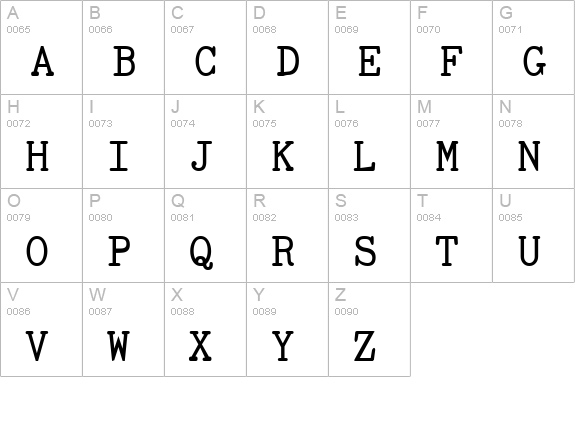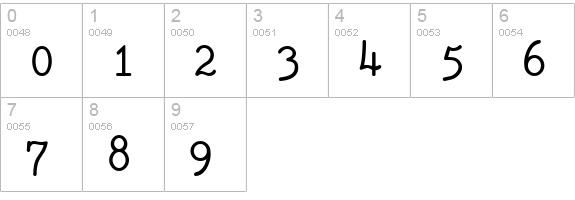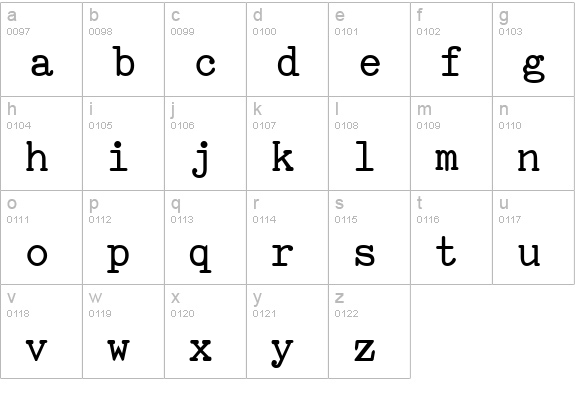
TiredOfCourier Bold Font Details
TiredOfCourier Bold is a strong, high-contrast variant in the TiredOfCourier typeface family \xE2\x80\x94 well suited to headlines, attention-grabbing titles, and strong calls-to-action.
Introducing TiredOfCourier Bold, the epitome of boldness and distinction in the world of typography. This remarkable font is designed to make a powerful statement, capturing attention and leaving a lasting impression on any design project it graces. TiredOfCourier Bold exudes an air of confidence and strength, with its thick, assertive lines that demand attention. Its bold and robust nature brings a sense of authority to any text, making it ideal for headlines, titles, and statements that need to stand out. But what sets TiredOfCourier Bold apart from other fonts is its unique ability to effortlessly blend sophistication with a touch of rebellion. Its slightly rugged edges and unconventional letterforms give it an edgy and contemporary vibe, making it the perfect choice for brands and designs that aim to break free from the ordinary. One of the most outstanding features of TiredOfCourier Bold is its versatility. It effortlessly adapts to various design styles, whether it's a modern and minimalist layout or a vintage-inspired masterpiece. This font knows no boundaries, delivering impeccable legibility and readability in any context. And the best part? TiredOfCourier Bold is available to download for free at FontsMarket.com. Yes, you read that right! This exceptional font can be freely accessed, allowing designers, creatives, and enthusiasts alike to unlock its immense potential without breaking the bank. So, if you're tired of the mundane and seeking a font that exudes confidence, rebelliousness, and versatility, look no further than TiredOfCourier Bold. Download it today from FontsMarket.com and let your designs make a bold statement that won't go unnoticed.